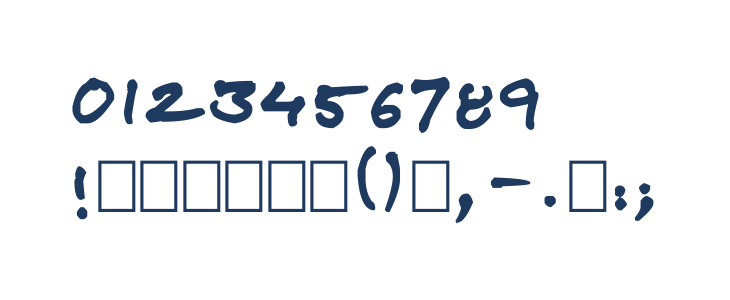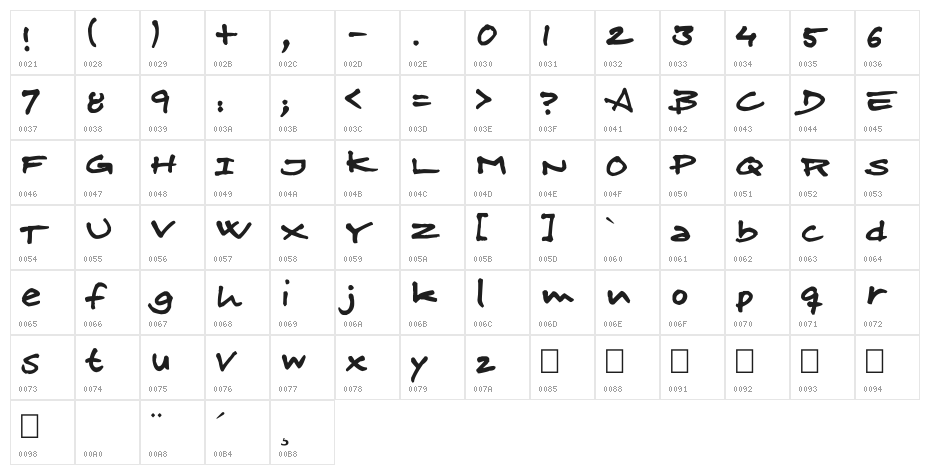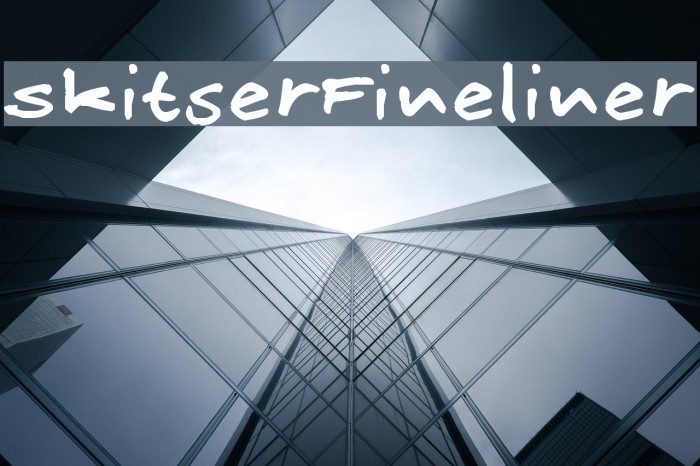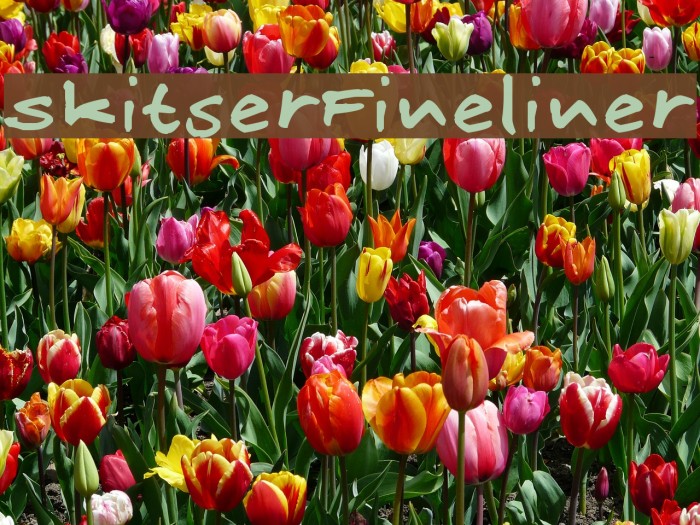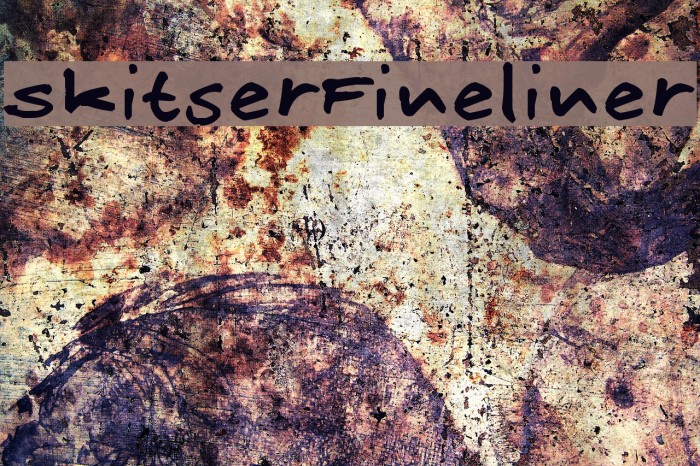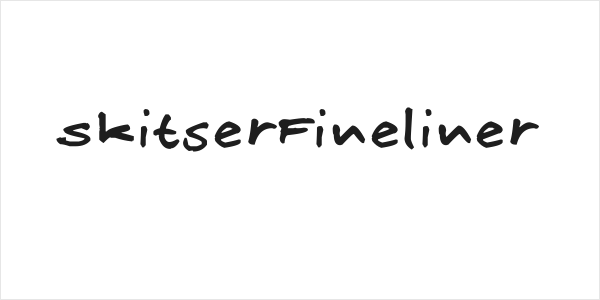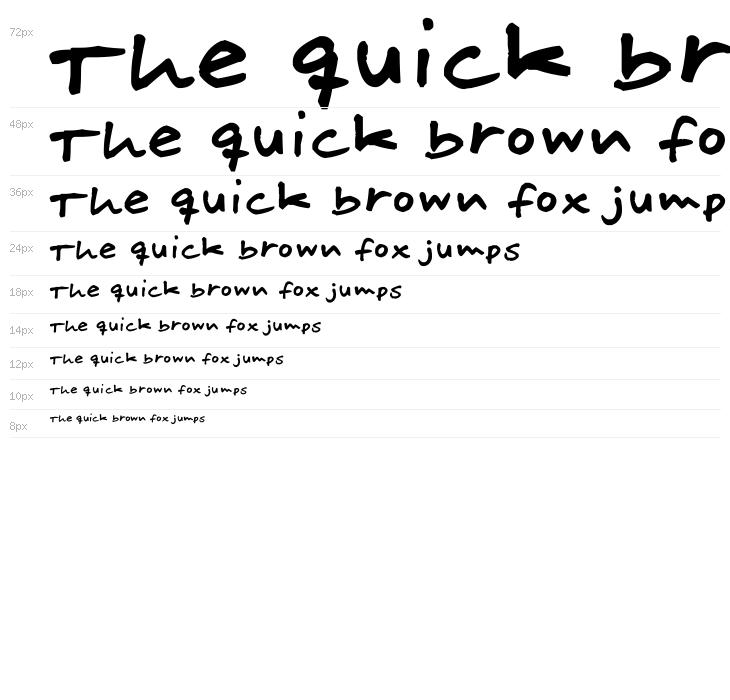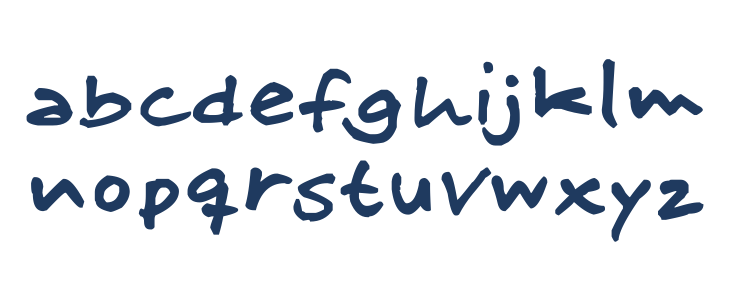
SkitserFineliner Font
SkitserFineliner Description
This font features a playful and casual handwritten style, reminiscent of a sketch or doodle made with a fineliner pen. The characters are slightly irregular, adding a personal and informal touch. The uppercase and lowercase letters maintain a consistent flow, with rounded edges and varying stroke widths that give it a dynamic appearance. The numbers and special characters follow the same style, ensuring uniformity across all glyphs. This font is ideal for projects that require a relaxed and approachable aesthetic.
| Use Case | Logos, Headlines, Informal Text |
| Proposed Projects | Ideal for greeting cards, children's books, casual branding, and creative projects that require a personal touch. |